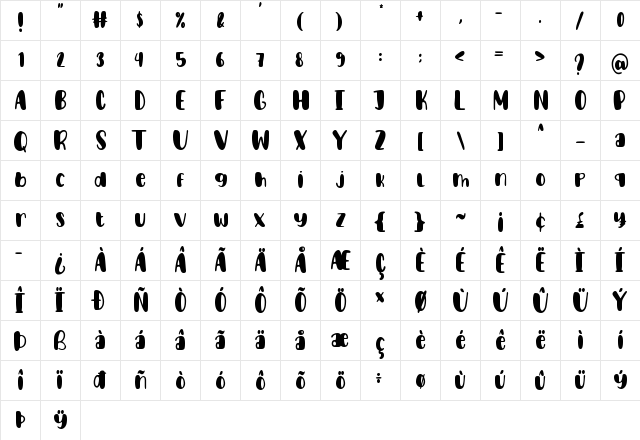
Little Cupcakes Regular
Design Context for Little Cupcakes Typeface
Little Cupcakes is a composed and adaptable typeface that performs quietly and consistently across a wide range of design contexts.